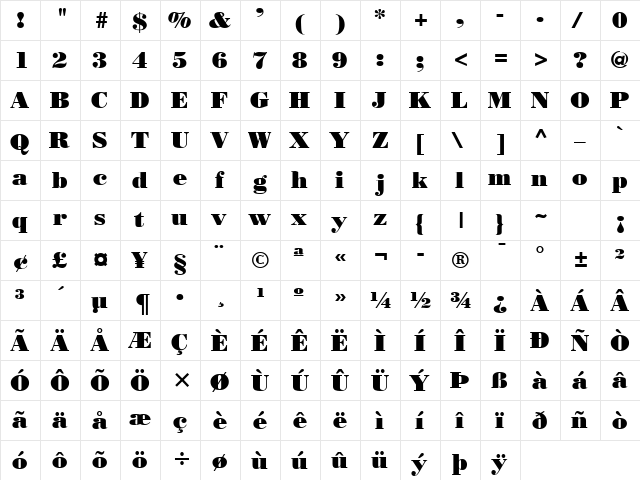
Rotterdam Normal
Design Context for Rotterdam Typeface
Rotterdam is a composed and adaptable typeface that performs quietly and consistently across a wide range of design contexts.